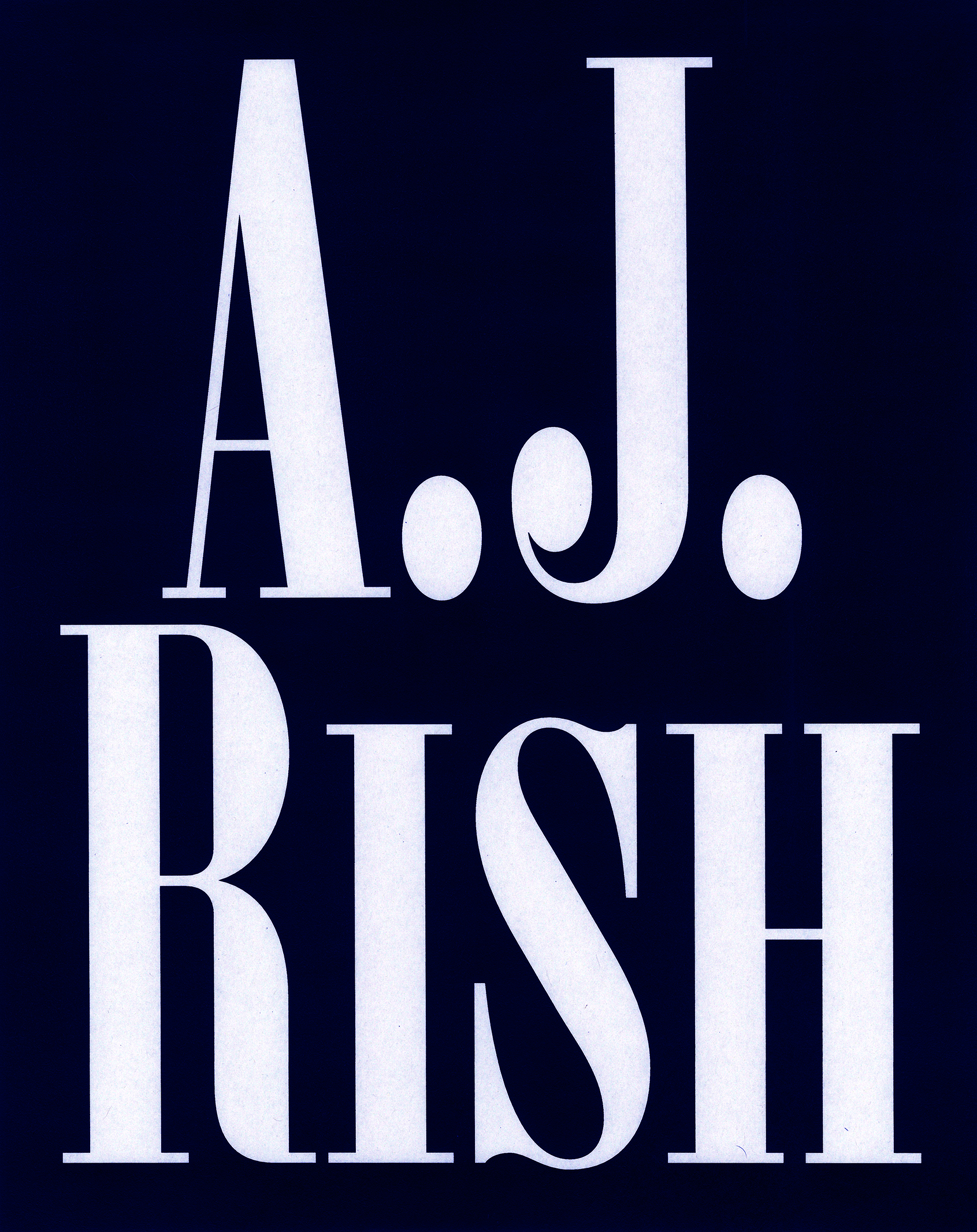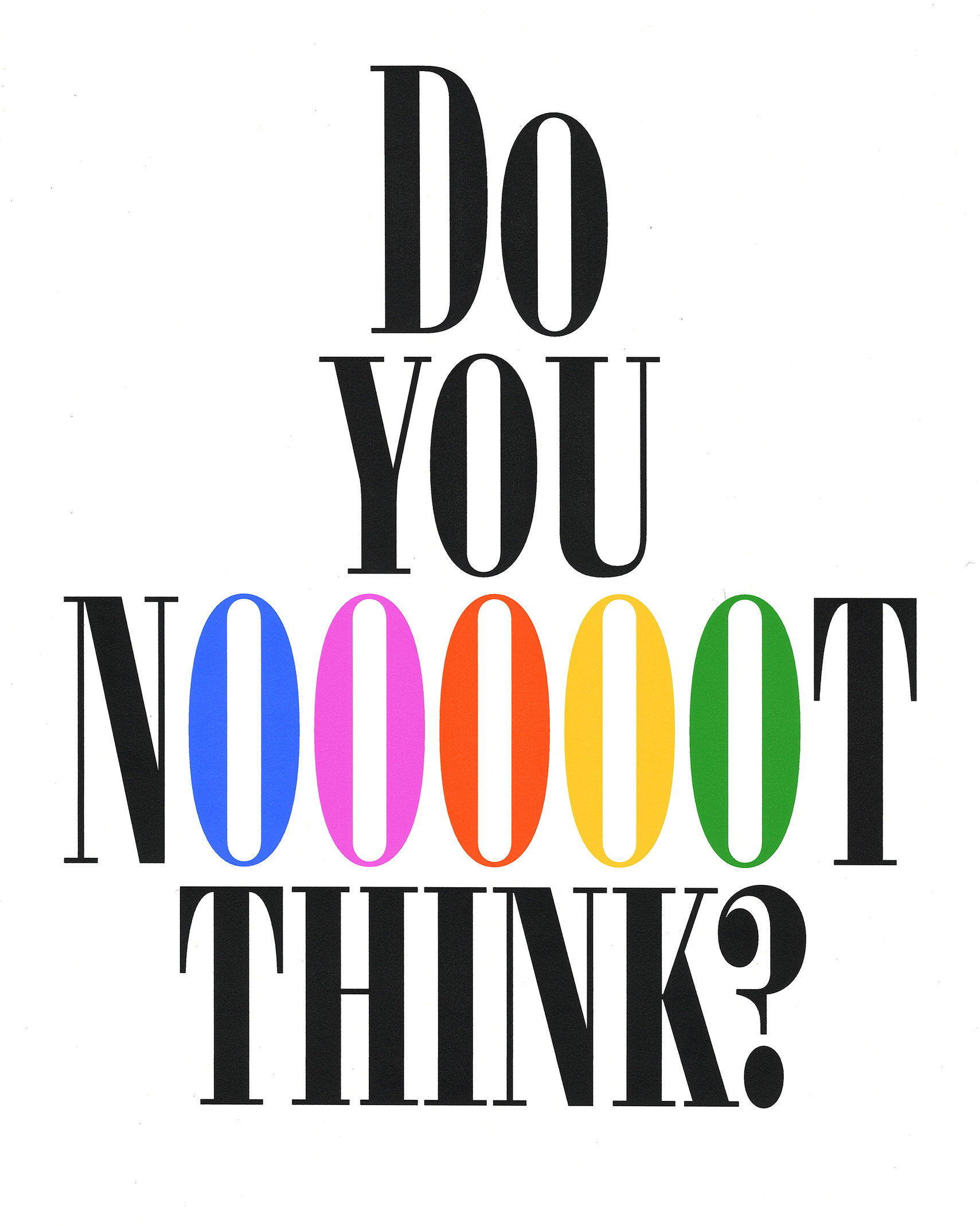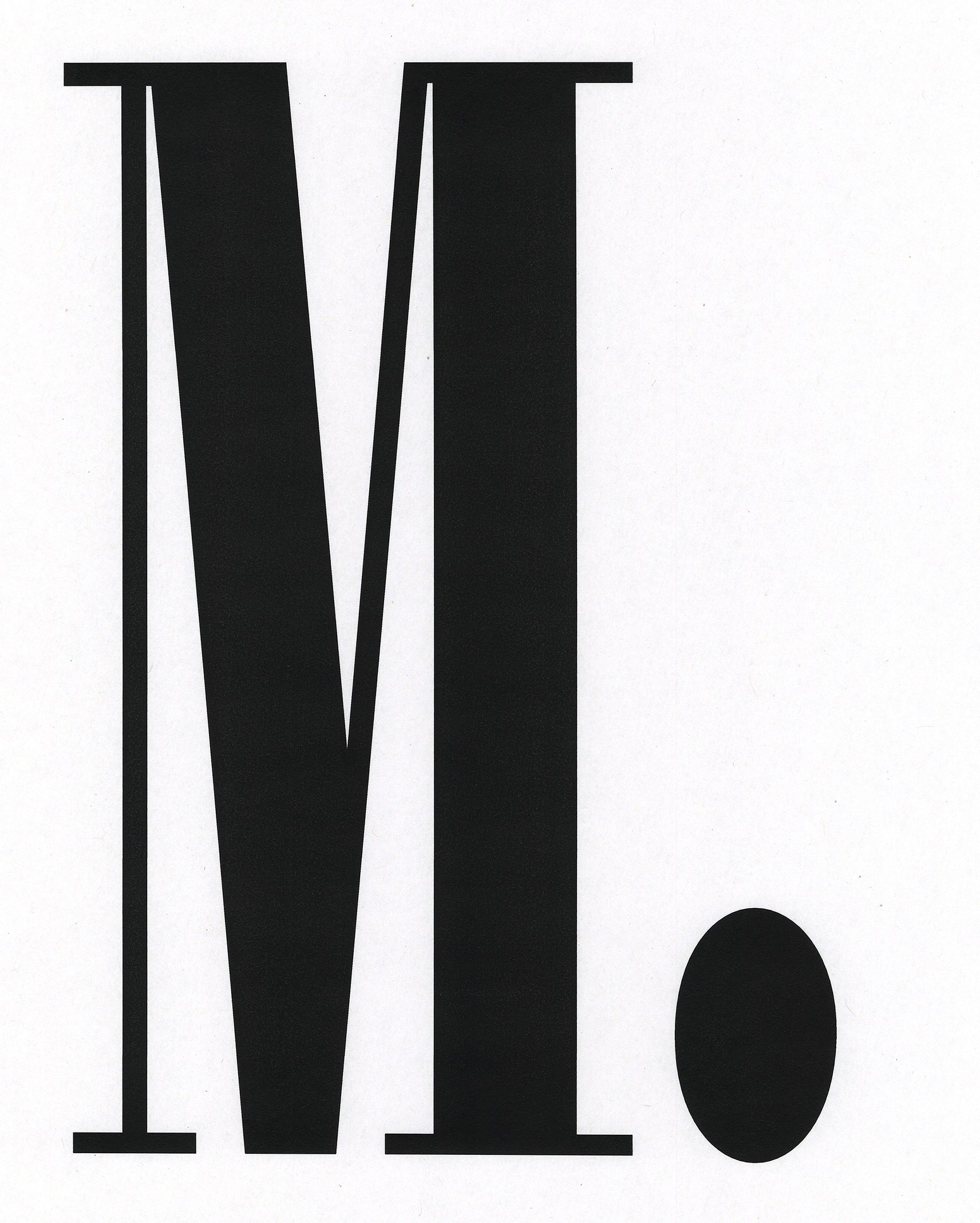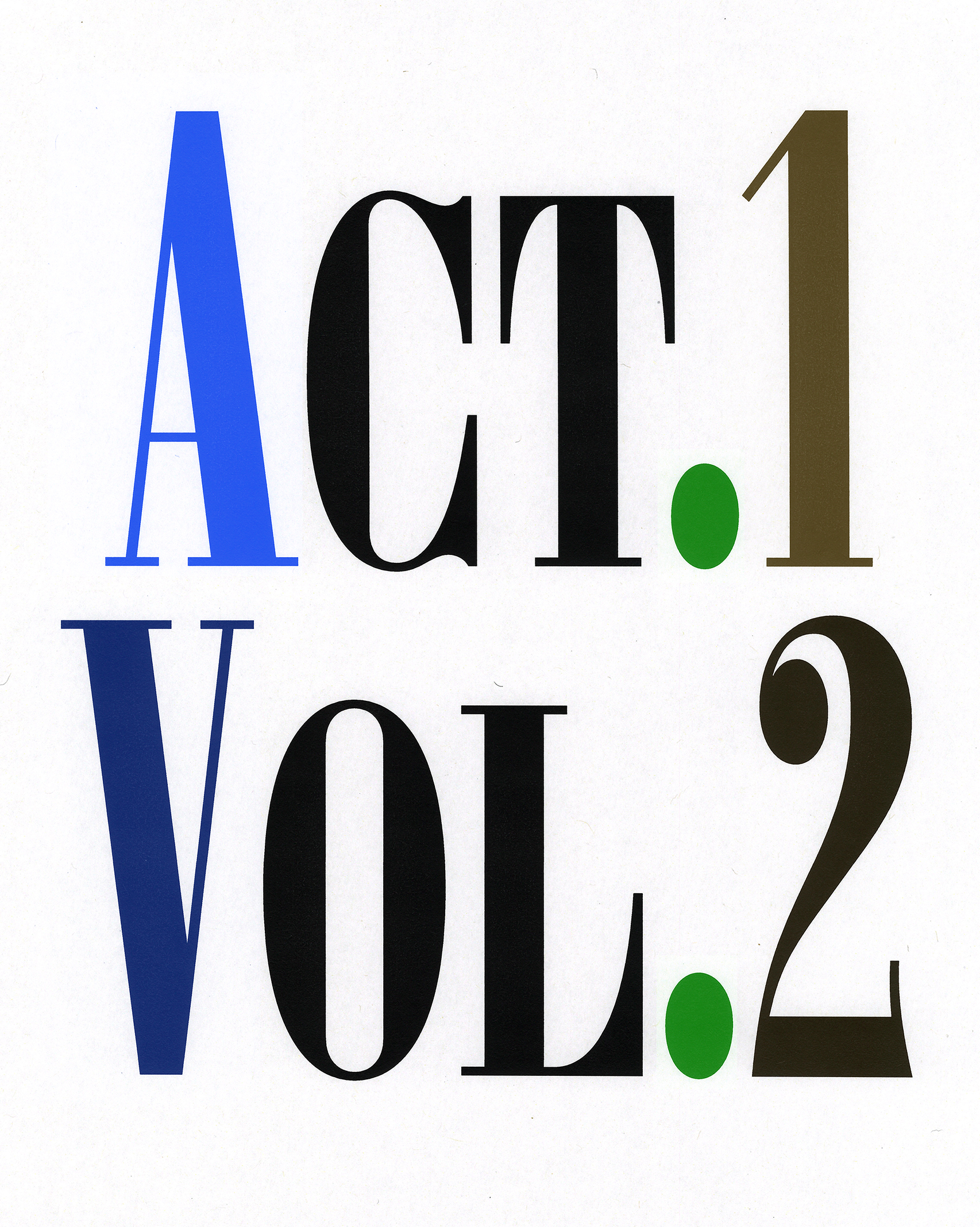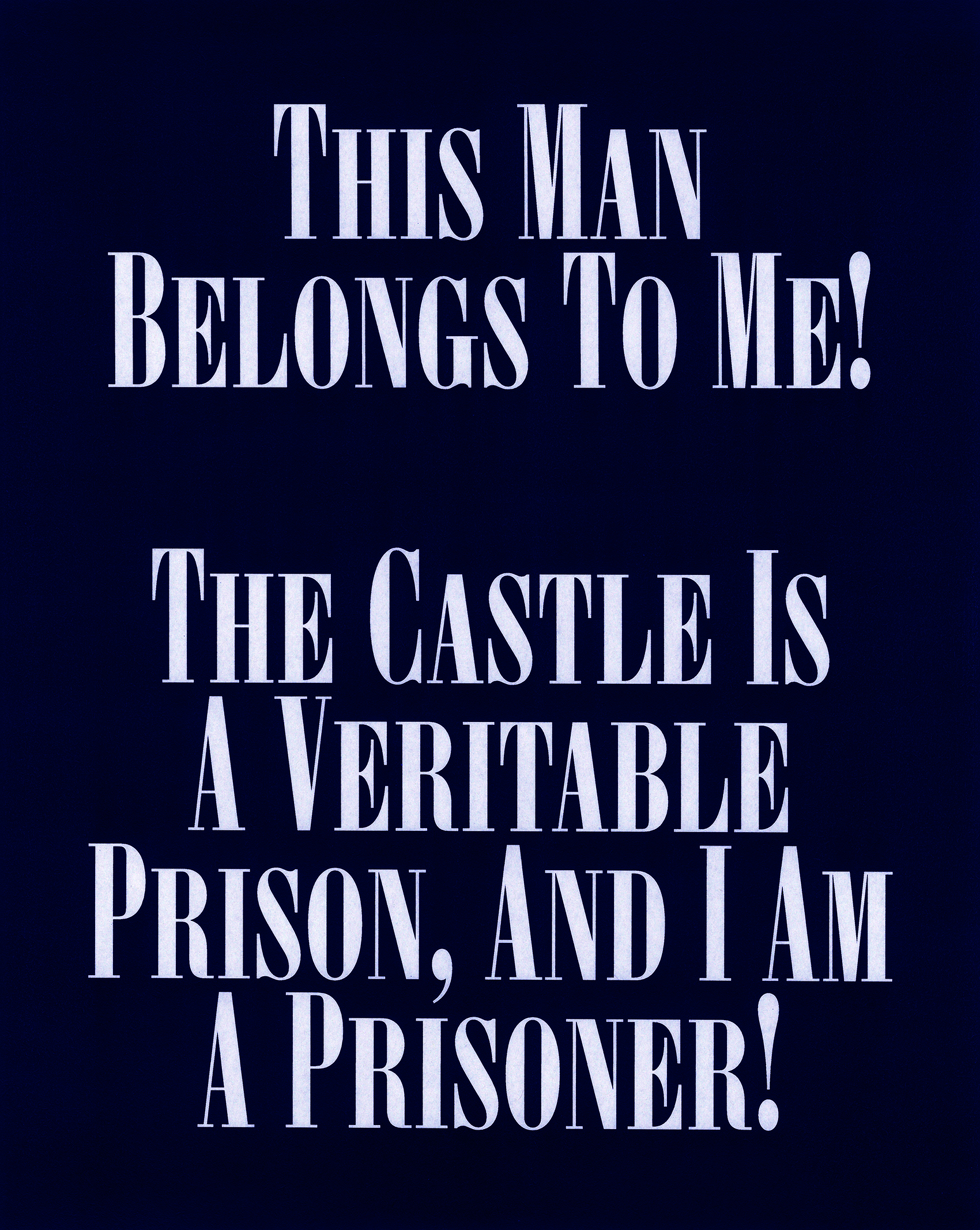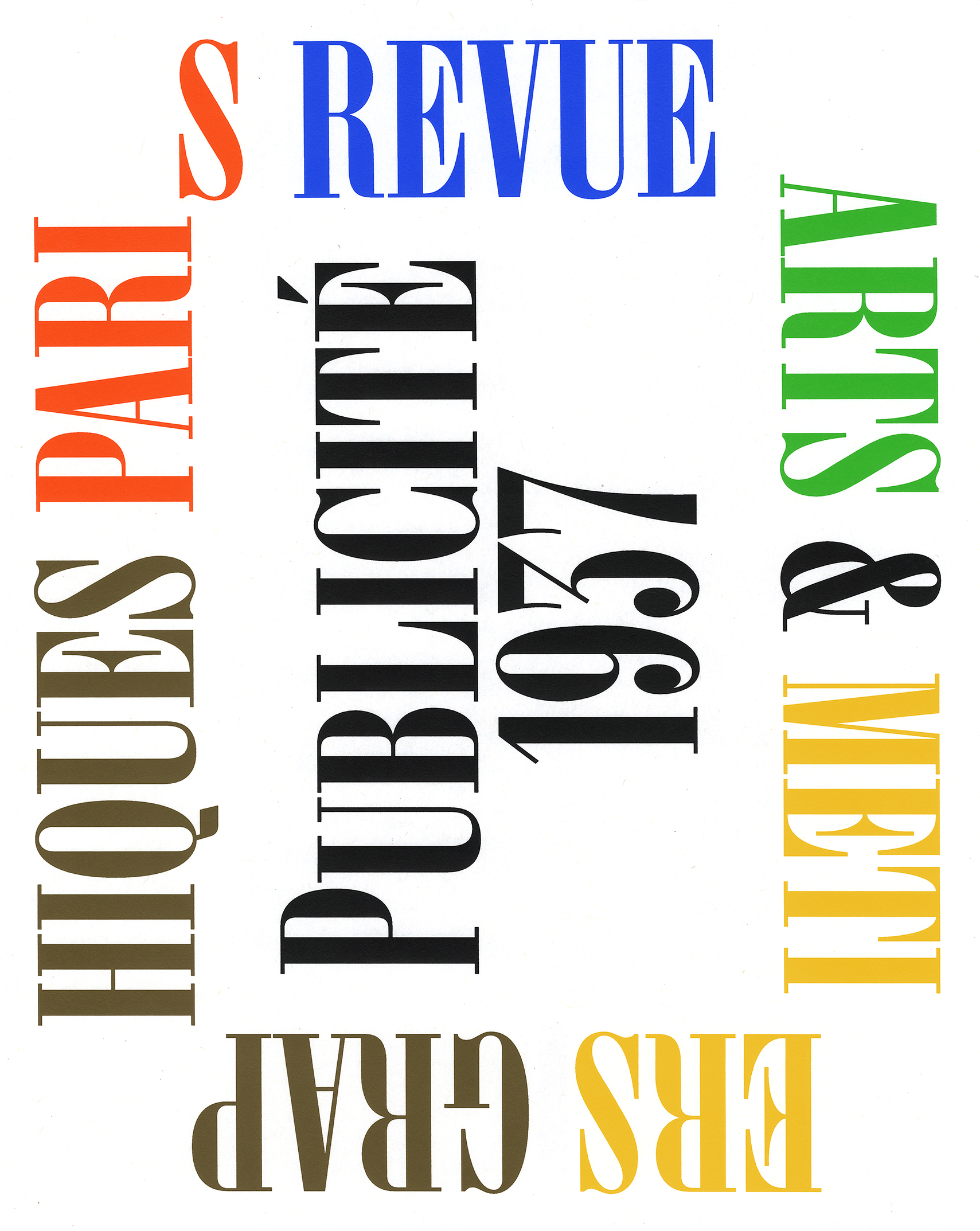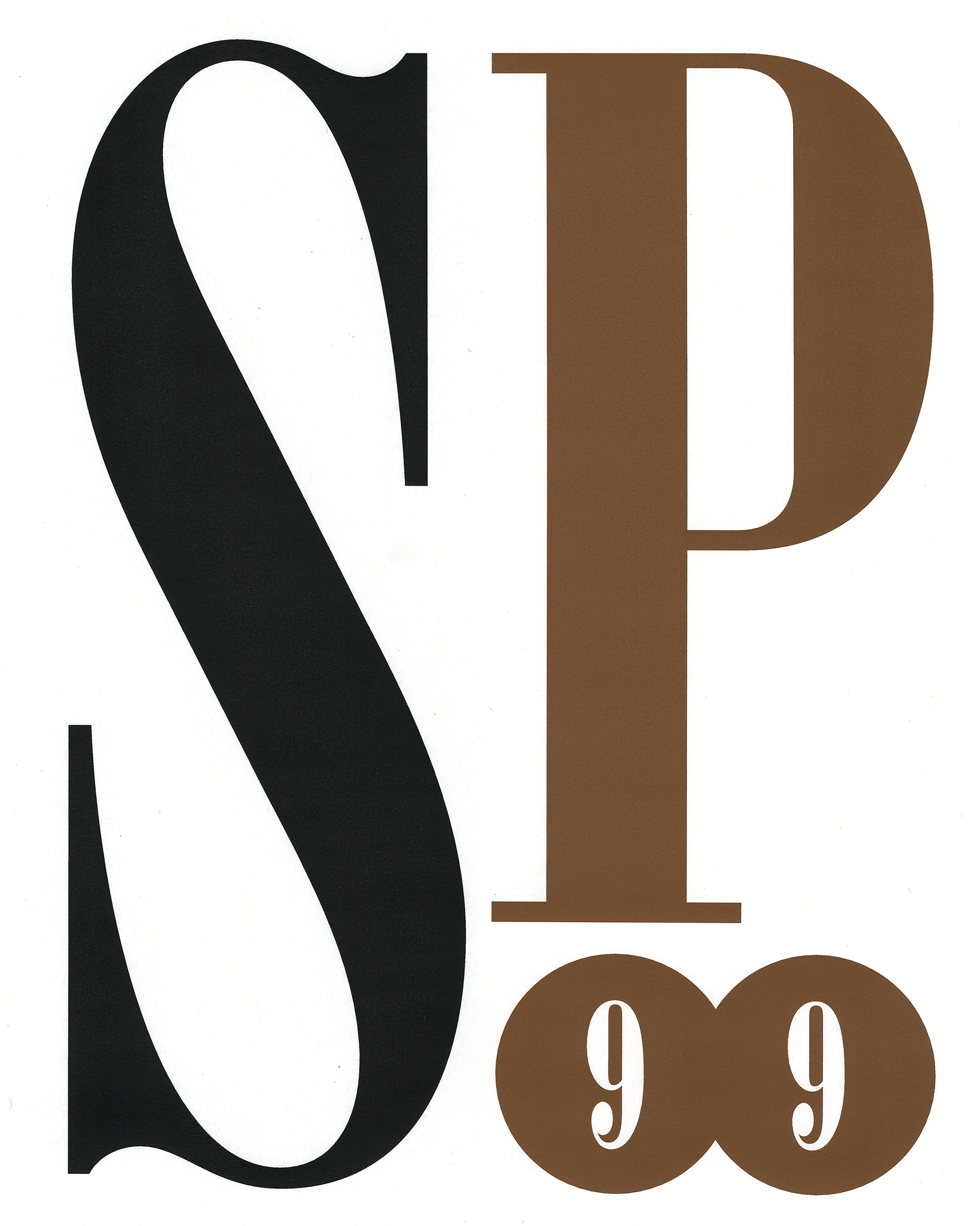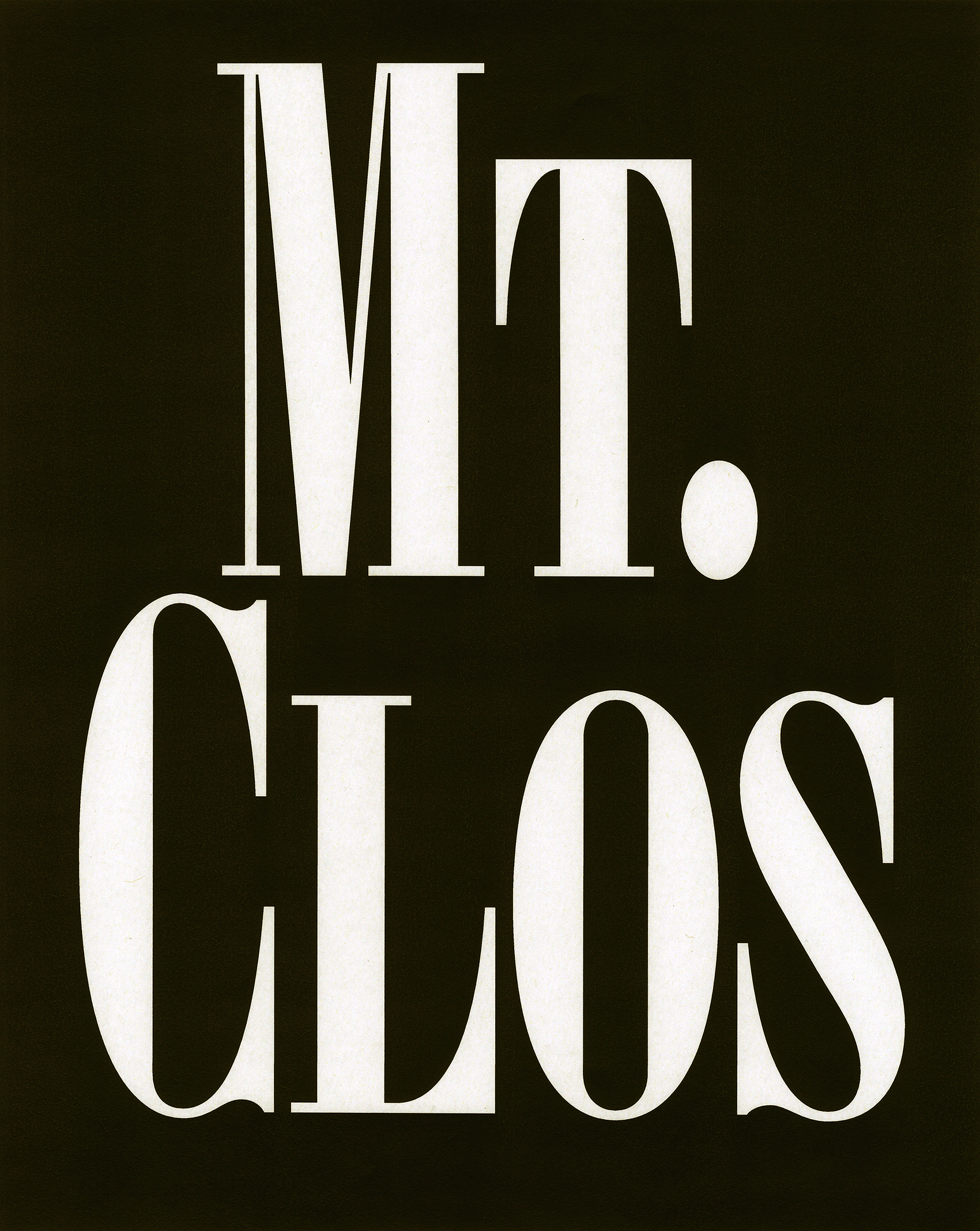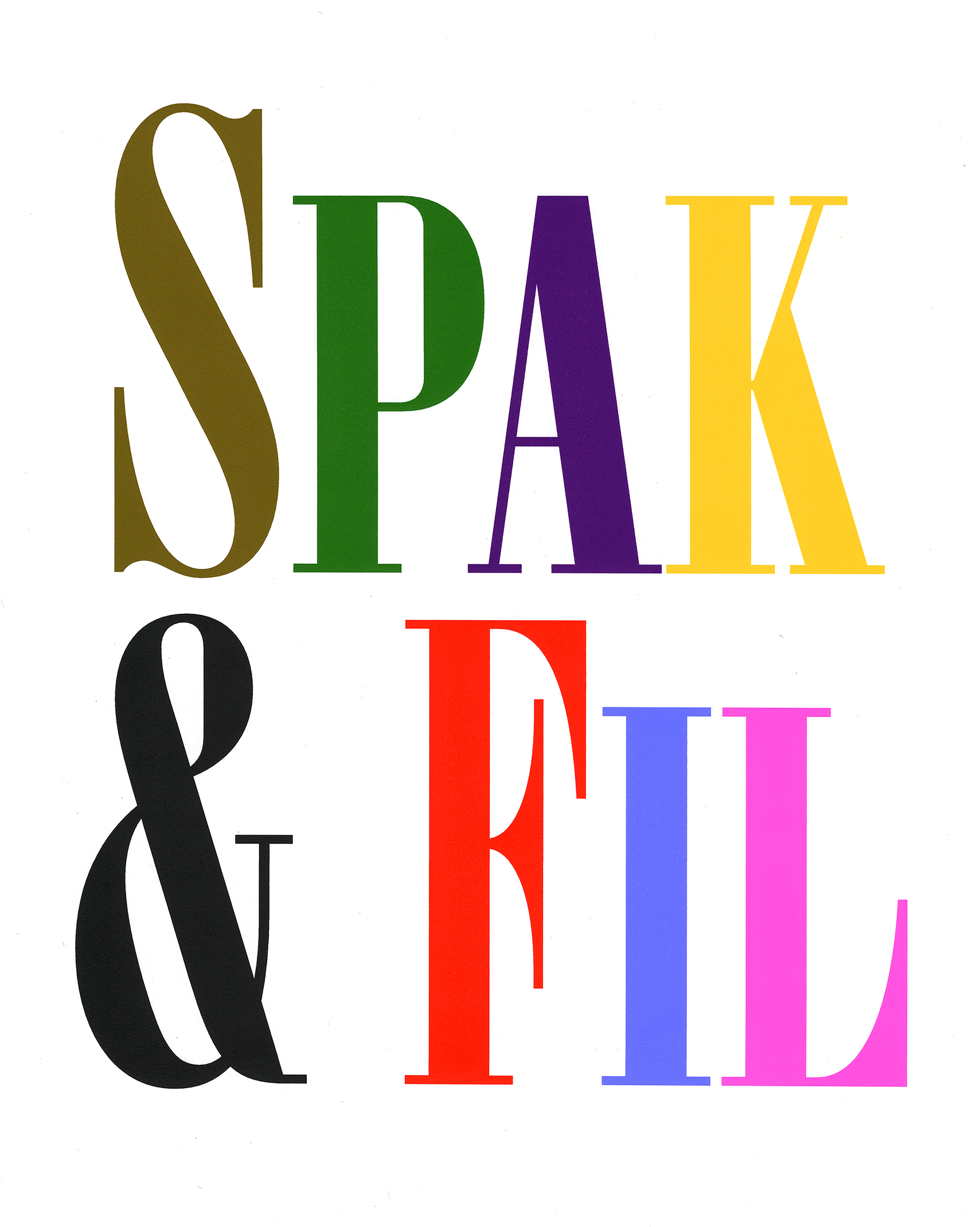
Harker
Bram Stoker, Dracula, first issue by Archibald Constable & Co, London, 1897.
Specimen of the Olympic typeface from the Deberny & Peignot foundry, 1937.
About Harker
Harker is a condensed and high-contrast typeface with thin and flat serifs in the style of a Didot. Its design stands out through a balance between the calligraphic origins of the letters and their geometric rationalization. It features two capital heights, offering more options for composition.Thomas Bizzarri and Alain Rodriguez found their primary inspiration in Olympic, released in 1937 by the Parisian type foundry Deberny & Peignot. Olympic was already conceived as a revival and refinement of one or more anonymous typefaces, whose stylistic features were widely found in Western foundries’ specimens during the second half of the 19th century. At the time, these typefaces, composed exclusively of capitals, were widely used in the emerging fields of press, advertising, fashion and publishing. This was the golden age of serialized literature and gothic novels, marked by publications such as Dracula by Bram Stoker, published by Archibald Constable & Co. in 1887, whose bold and timeless cover was entirely typographic. Thomas and Alain borrowed the name of their typeface from the narrator and heroine of the novel.By the end of the Romantic era, these typefaces saw renewed popularity lasting until the 1950s, especially seen in avant-garde journals and Club du Livre, before almost disappearing with the emergence of the International Style. The typographic practices stemming from this movement made title layouts using two different capital heights obsolete, as illustrated by the cover of Dracula. This approach curiously reemerged in the early 1990s in elements of popular culture, including movie posters and rap album covers. Harker reinterprets and updates these historical shapes and methods of composition.
Designed by Thomas Bizzarri and Alain Rodriguez. Development and mastering by Solenn Bordeau at OTT.